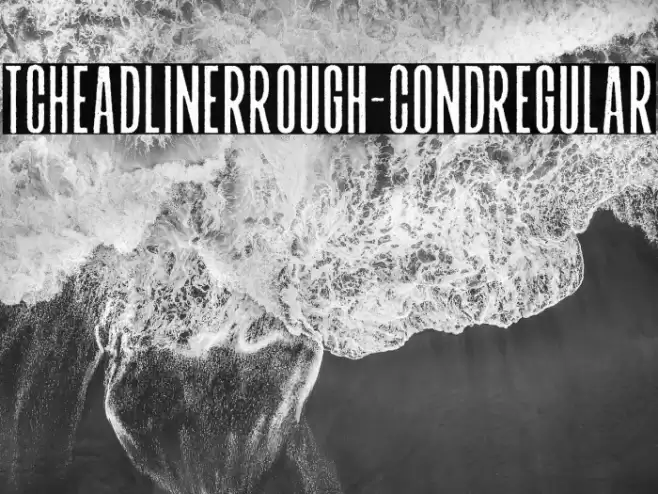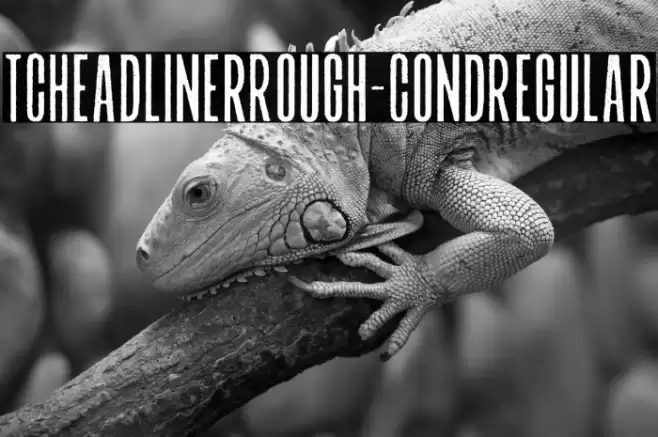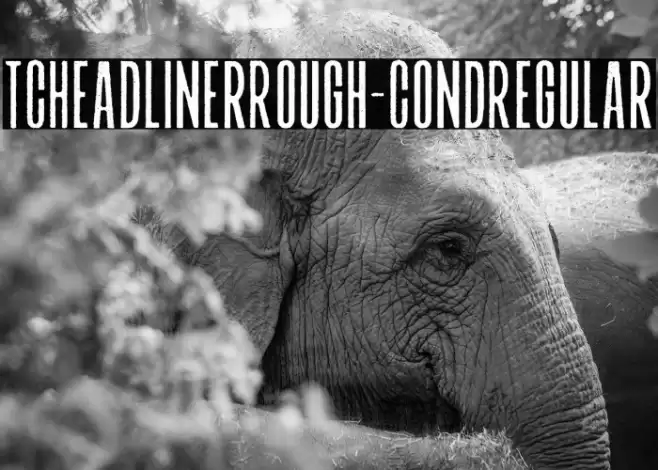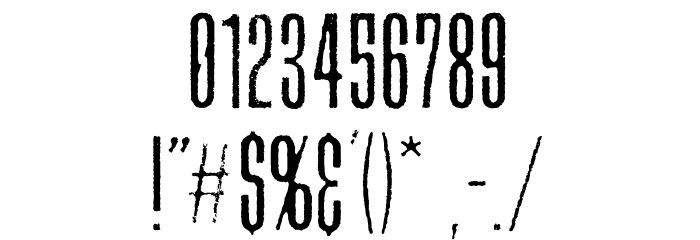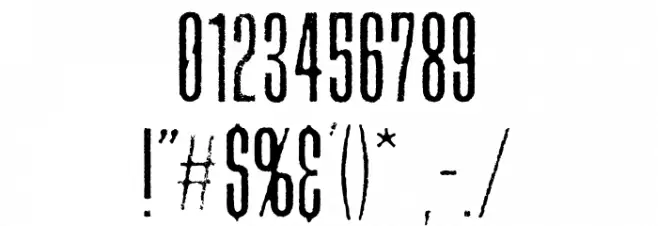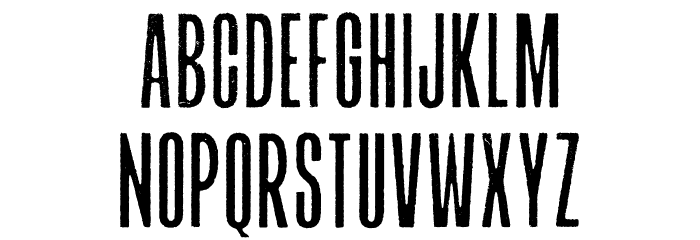
TCHeadlinerRough-CondRegular Font
TCHeadlinerRough-CondRegular Description
This font exhibits a rugged, distressed appearance, giving it a vintage and industrial feel. The characters are tall and narrow, with a condensed width that adds to its bold presence. The rough texture of the letters suggests a hand-crafted or worn look, making it ideal for projects that require a touch of authenticity or a retro vibe. The uppercase letters are prominent, while the numbers and special characters maintain the same distressed style, ensuring consistency across all text elements. This font is perfect for creating eye-catching headlines, posters, or branding materials that need to stand out with a unique and edgy style.
A rugged, distressed font with a vintage, industrial feel and condensed width from Uncategorized fonts.
- Proposed Projects: Ideal for vintage posters, industrial-themed branding, eye-catching headlines, and retro-style designs.
- Overall Style: Vintage
- Use Case: Headlines, Posters, Branding